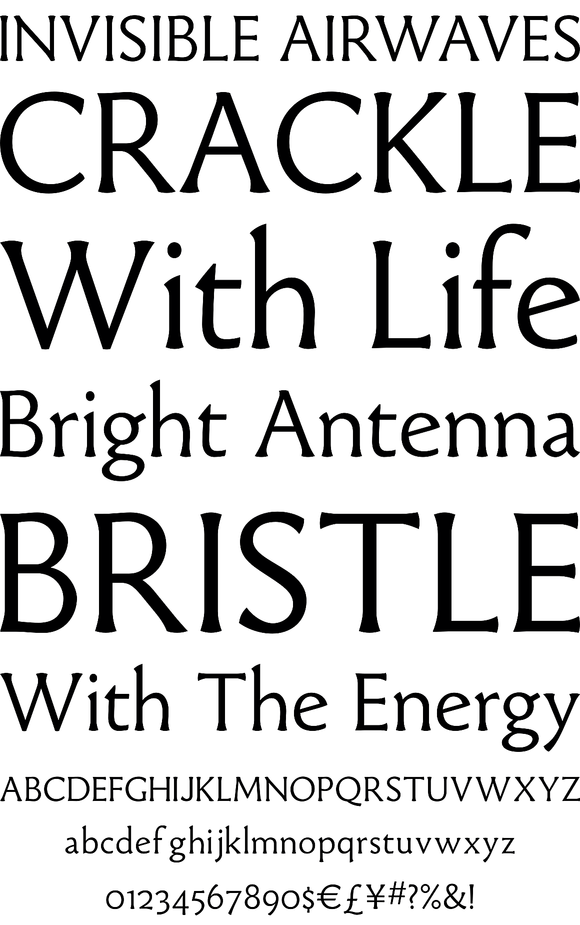
Paradigm
Originally released in 1995 as a three font family, Paradigm forcefully addressed the emaciating effect that digitization was then exerting upon traditional serifed typography.
Investigating the new media of a much previous era, Nick Shinn deconstructed the first roman type, designed by Sweynheym and Pannartz in 1467, and gleaned, from its minuscules, the low contrast and discreet serif treatment (portrayed by a novel convex effect), which he subsequently applied to both capitals and lower case of a classically proportioned Venetian invention.
Now in 2008, the glyphs, metrics and hinting of the 1995 fonts have been refined, Extra Bold and Light weights added, a full range of OpenType features instituted, and the number of characters per style increased almost threefold. It is a major upgrade to a unique typeface.